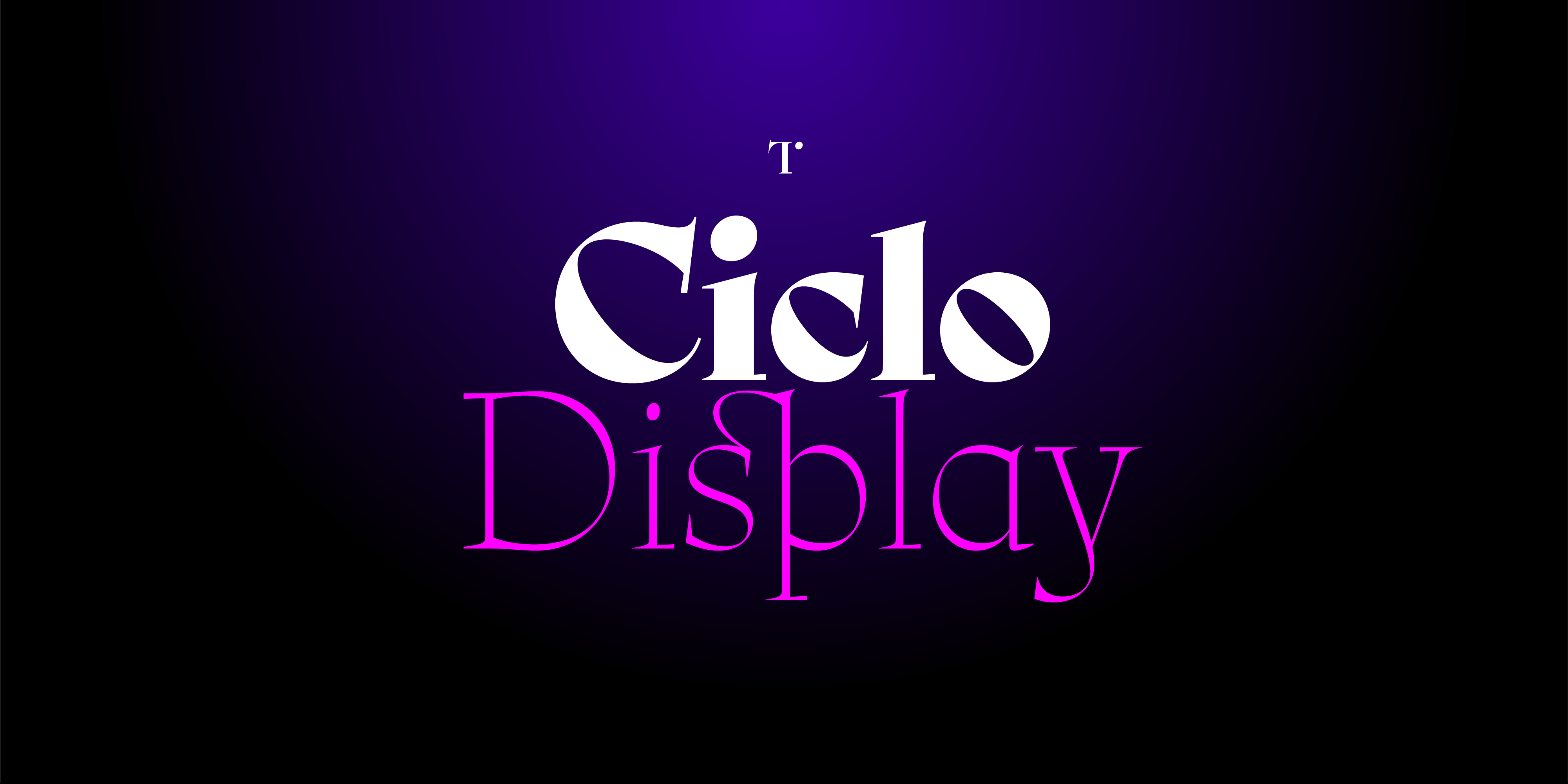
Ciclo Display
Designed by Antonio Mejía Lechuga, Ciclo Display is a serif font family. This typeface has eight styles and was published by Lechuga Type.
Ciclo is a type system inspired by the work of Lucian Bernhard, specifically Bernhard Modern, with high contrast and a dramatically inclined axis. The inclination of the inner axis, nearly 45 degrees in some characters, was found to be a particularly intriguing aspect. To that end, I have endeavored to preserve a notably steep angle in the majority of the characters within the Display family. The system will also include a Text family with a lower contrast and tilt angle for easier reading. The name “Ciclo” is derived from the existing rotation on the internal axis of the characters and the interpolation between the Display and Text versions, in search of a third variant (Subhead) in which this angle is a factor that determines the optical sizes of the different variants.